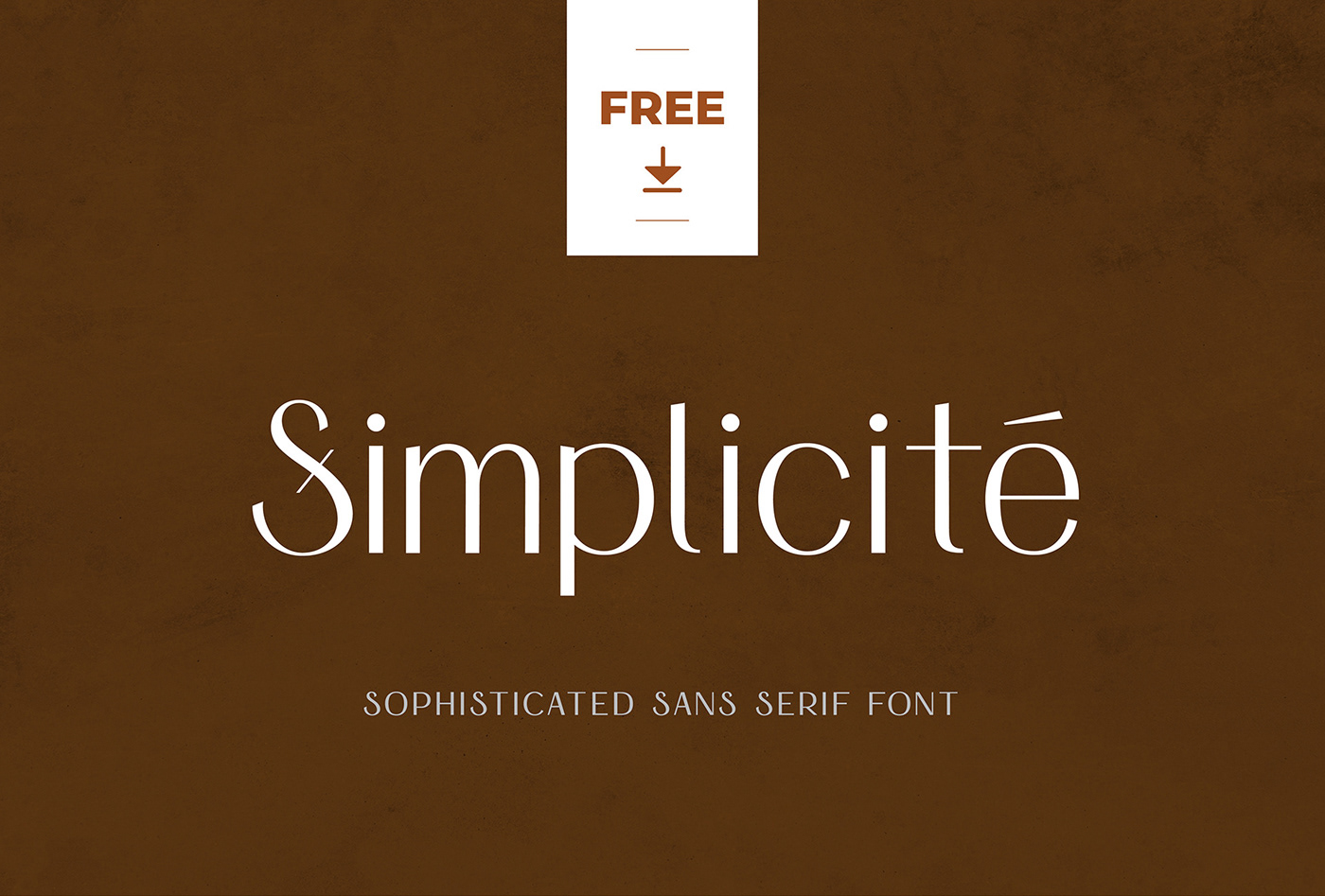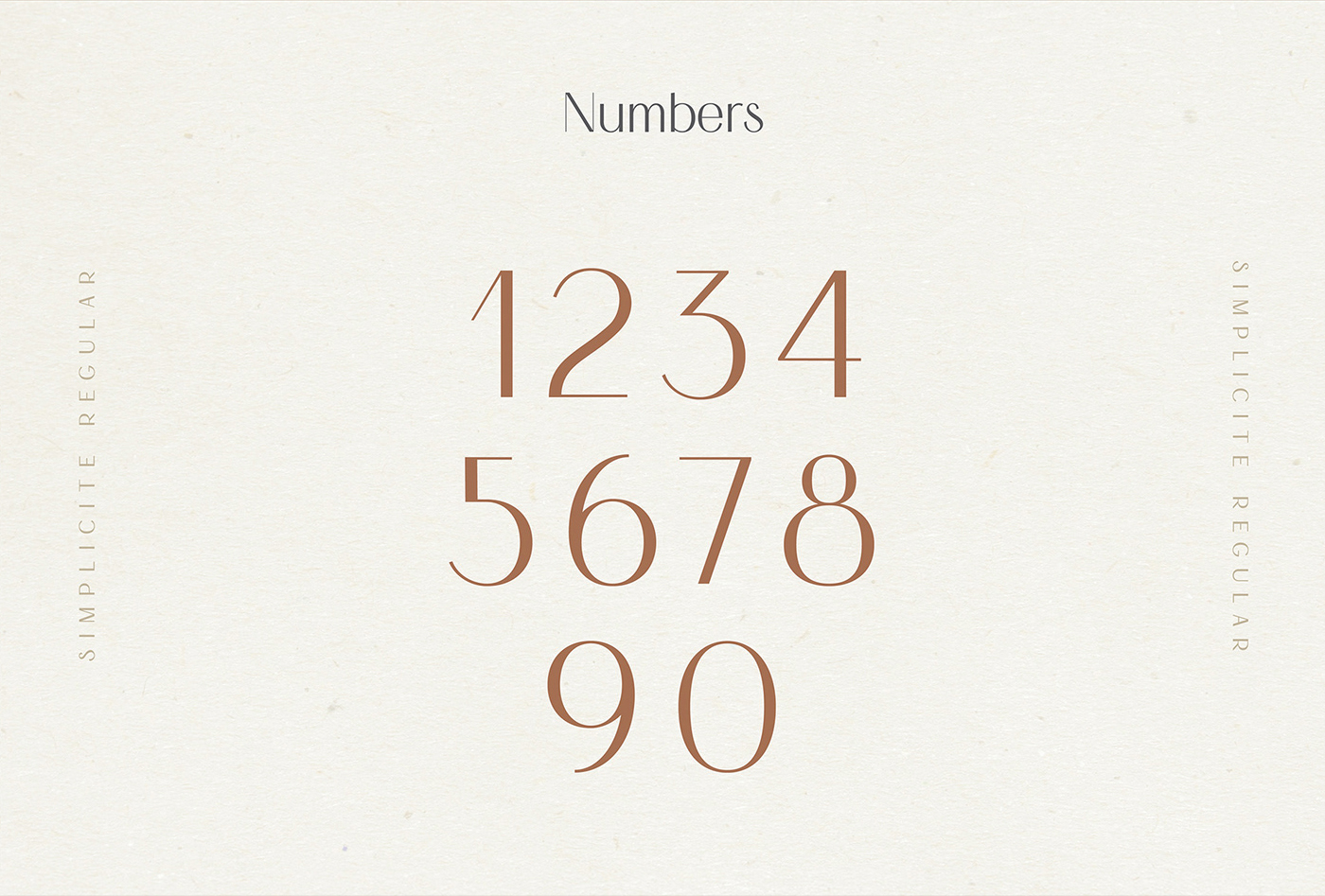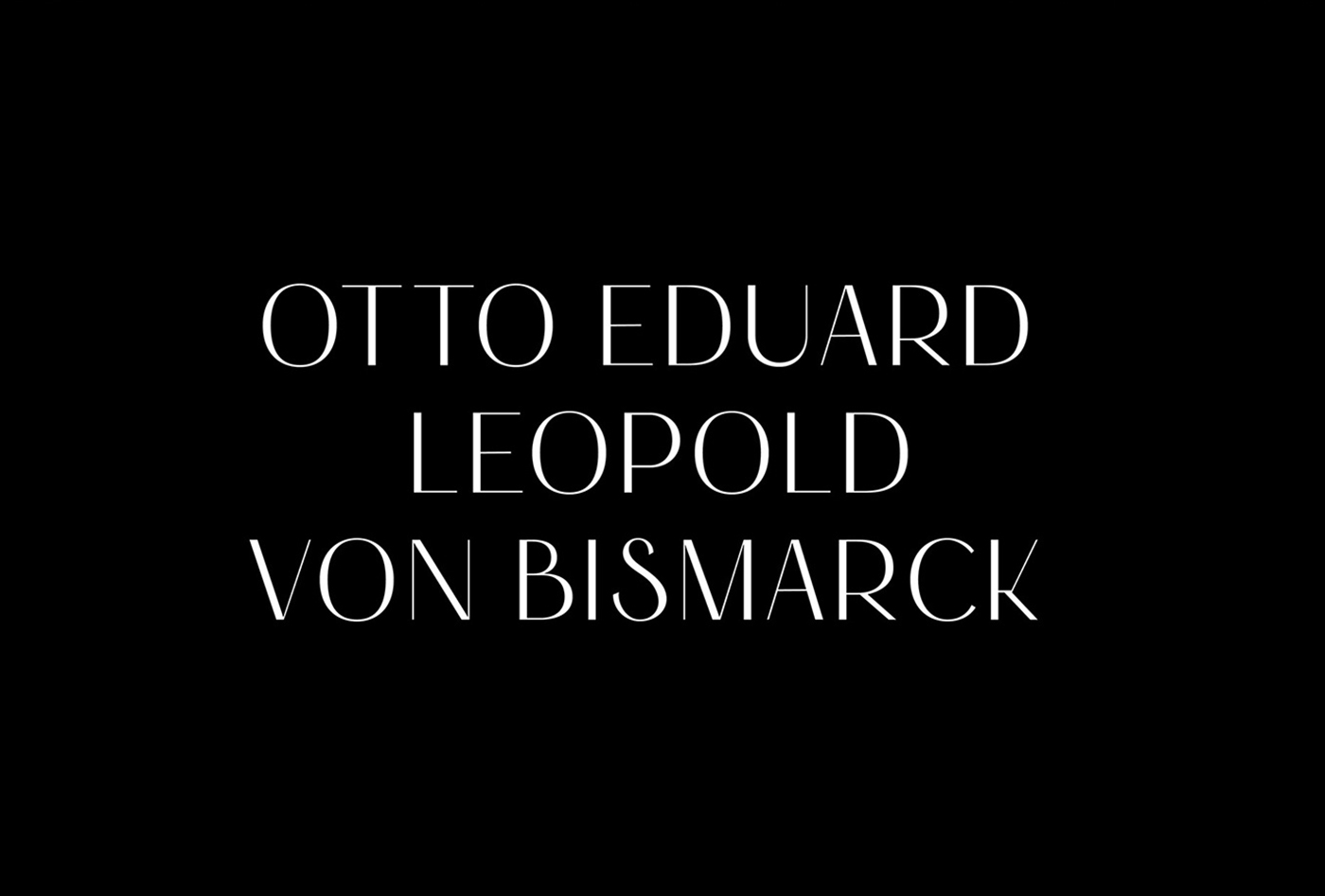
Simplicité Sans Serif Font
Introducing Simplicité Sans Serif Font, a stunning display typeface with beautiful contrasts. This sans serif font features uppercase letters and numbers, making it ideal for a wide range of design projects.
From greeting cards and posters to logos and product packaging, Simplicité adds a touch of sophistication to any design. With its bold and elegant style, it’s perfect for creating striking headlines, titles, and labels. Use it for advertising, branding, name cards, stationary, blog headers, art quotes, typography, and more. Simplicité Sans Serif Font is a versatile typeface that will elevate any project to the next level.